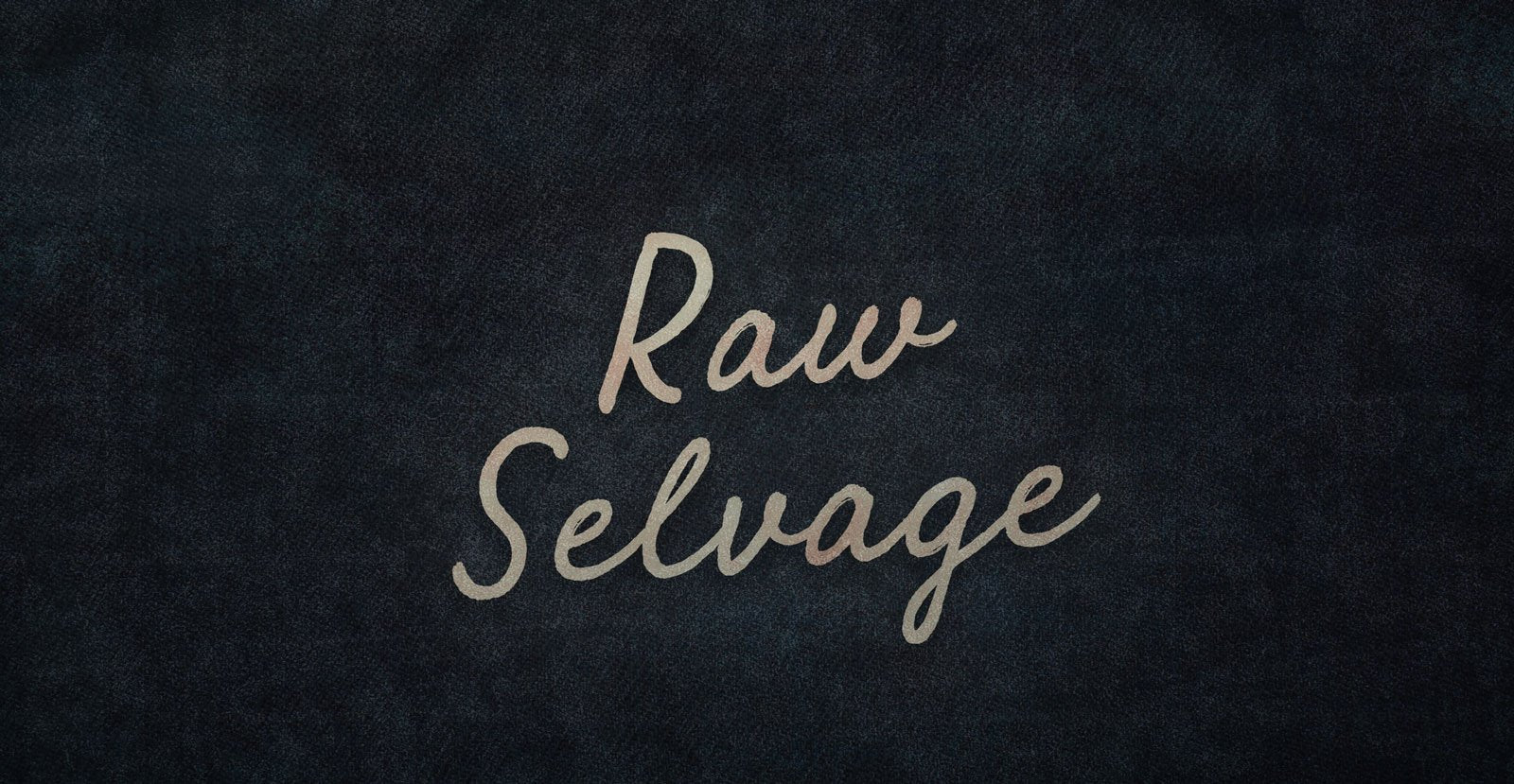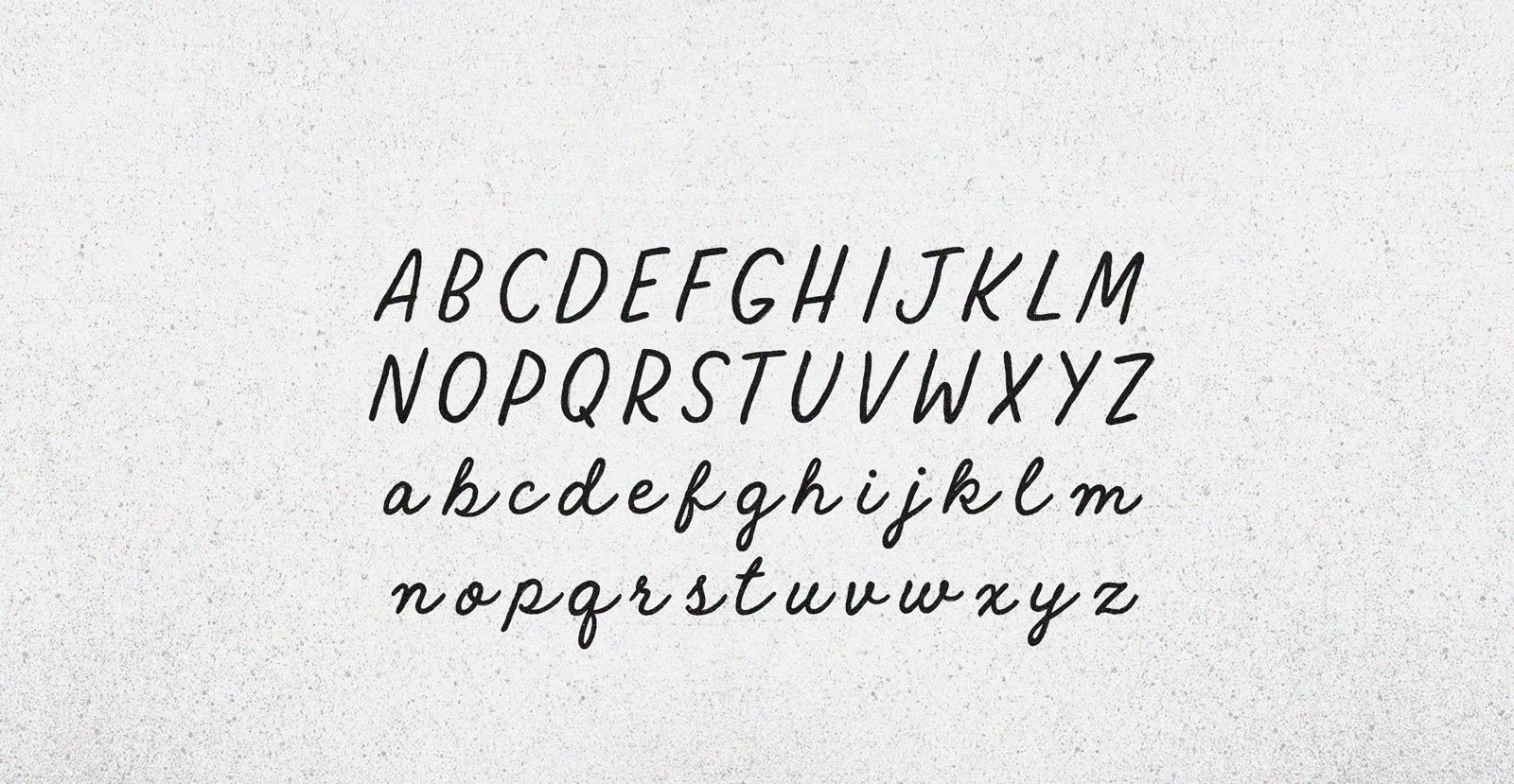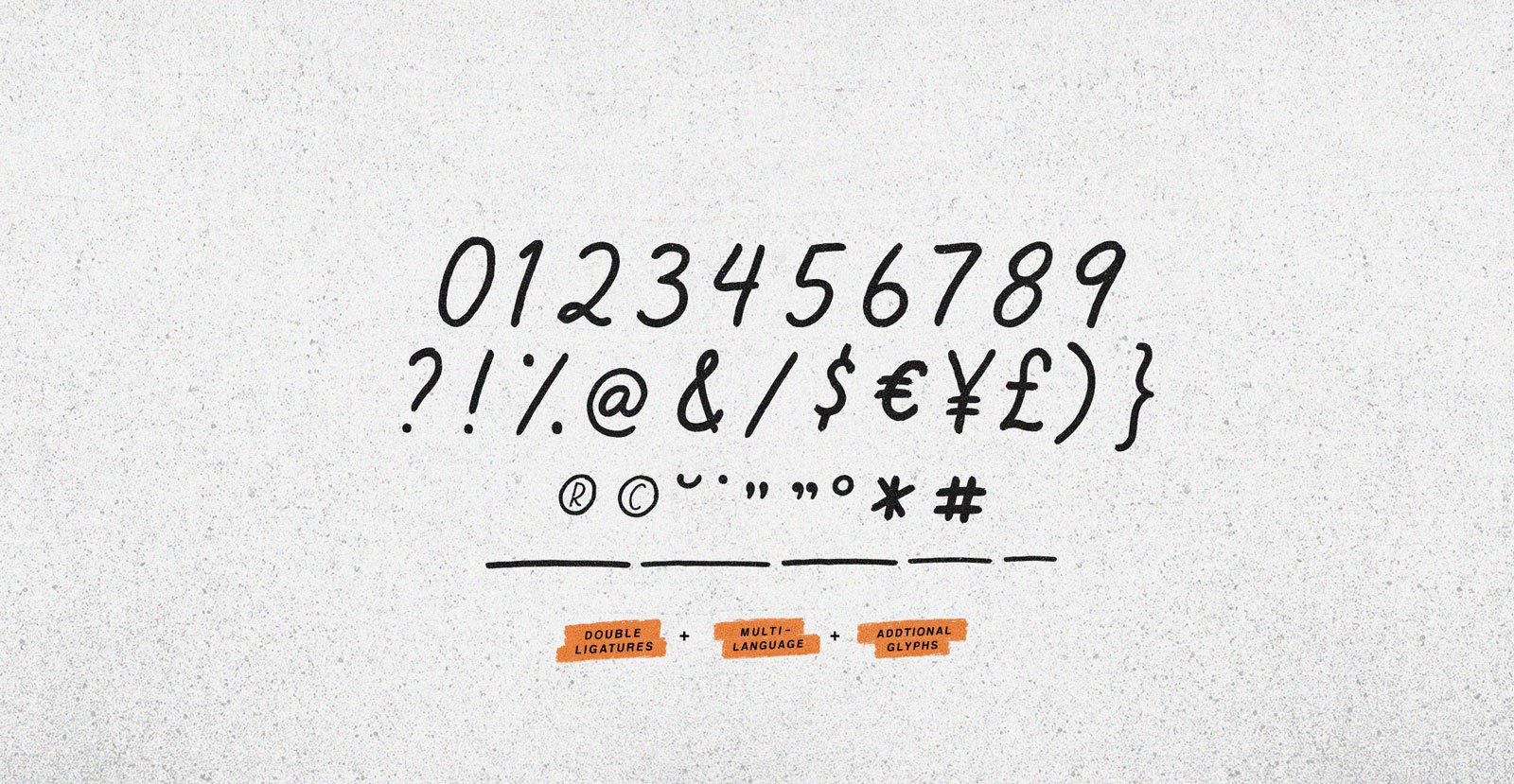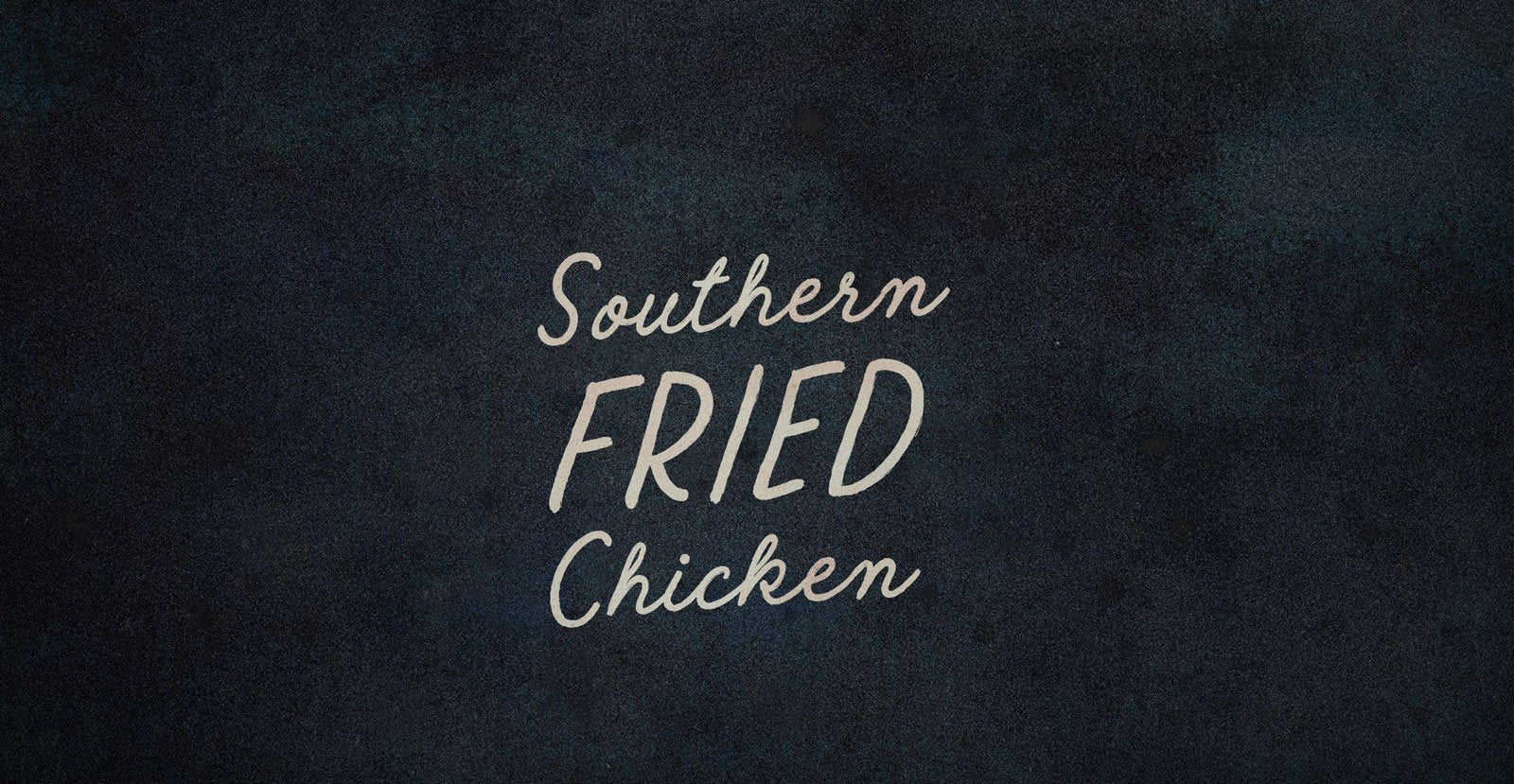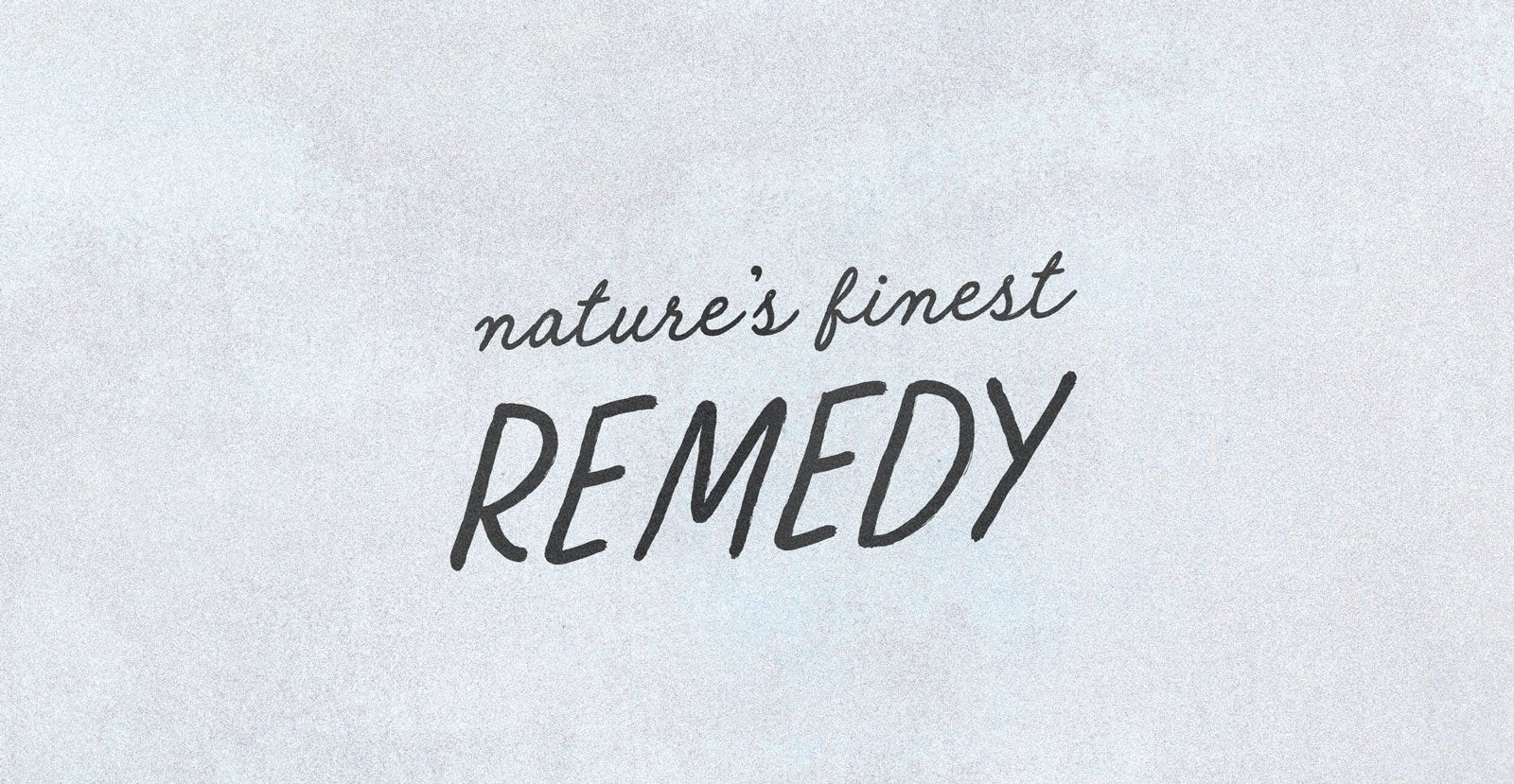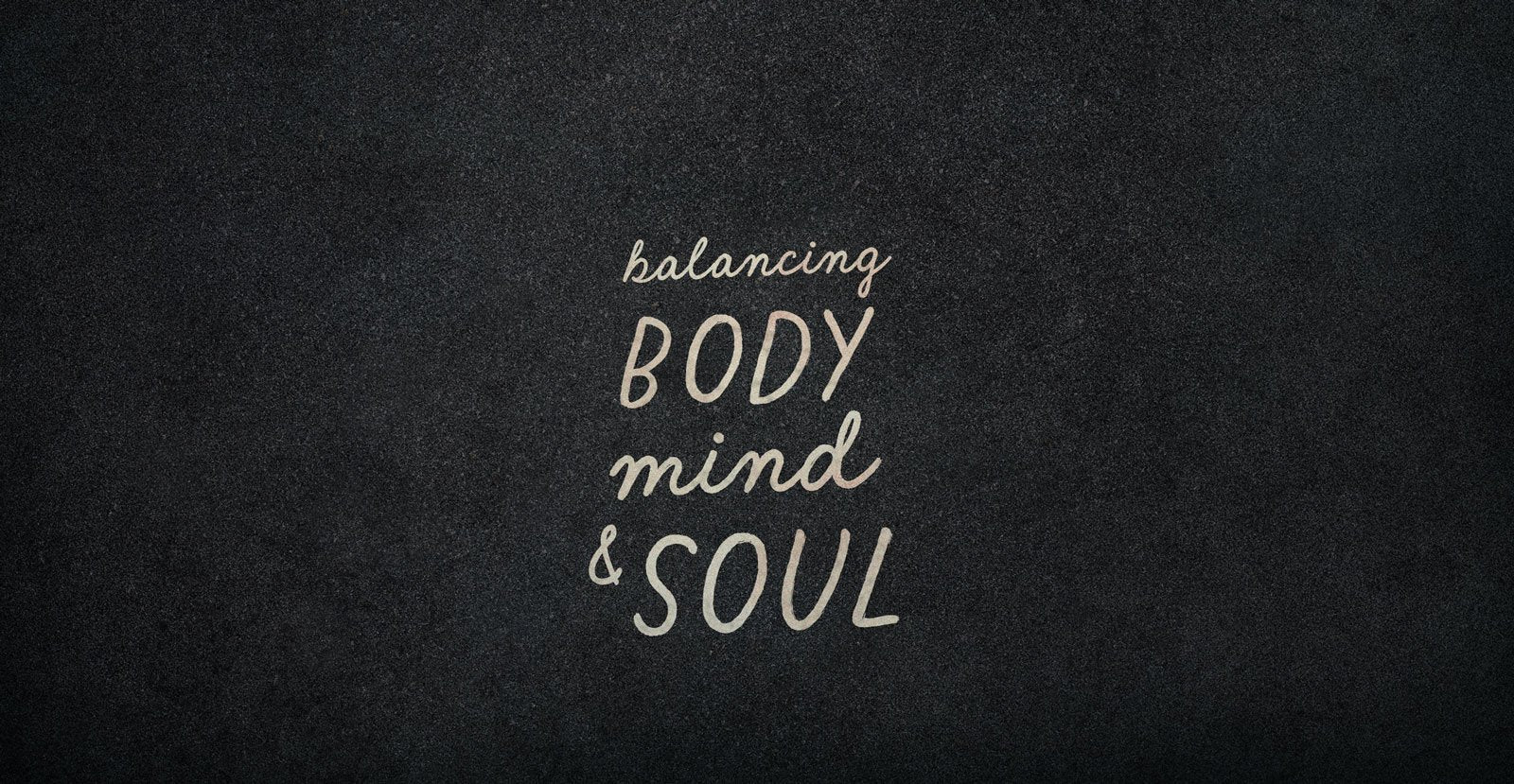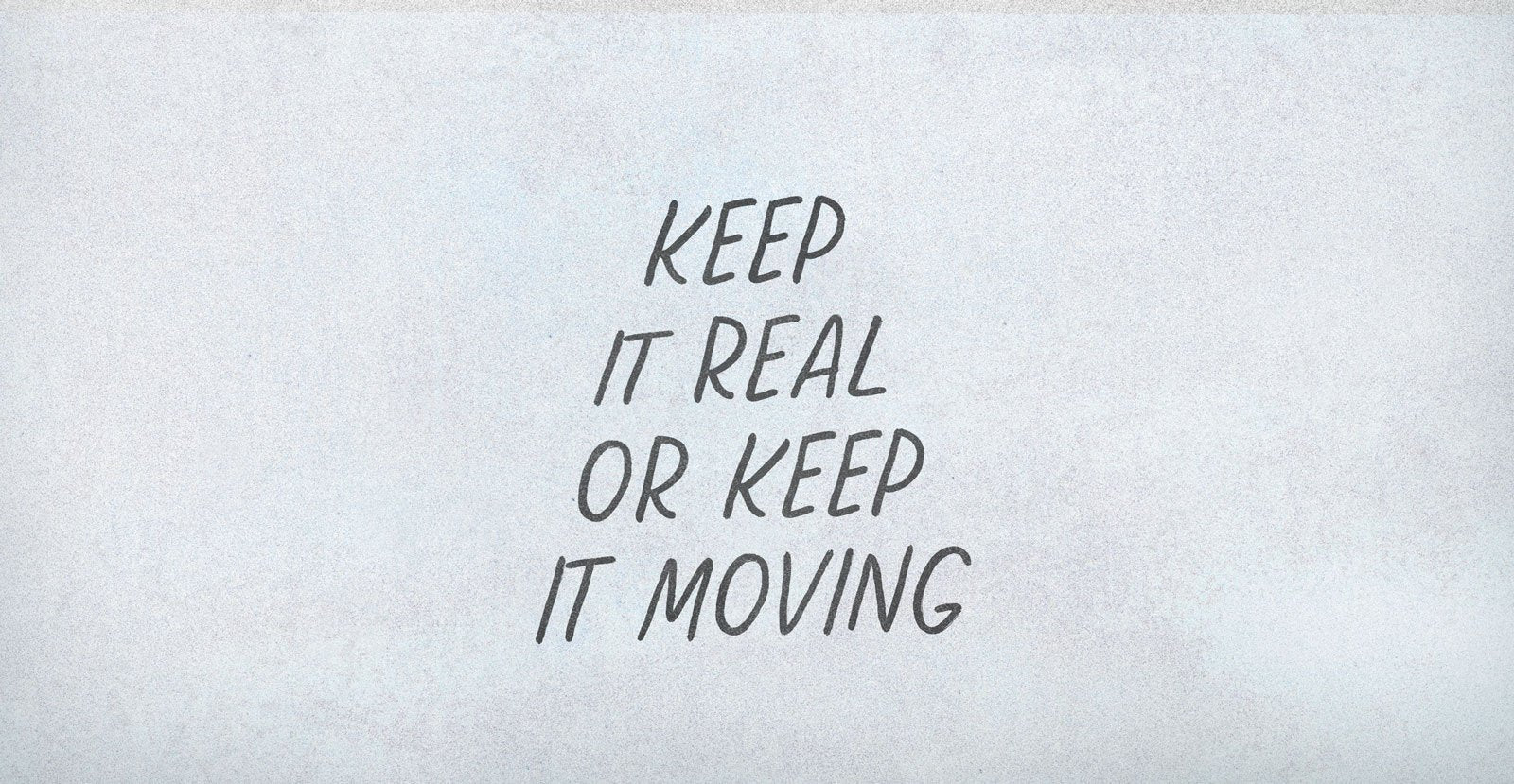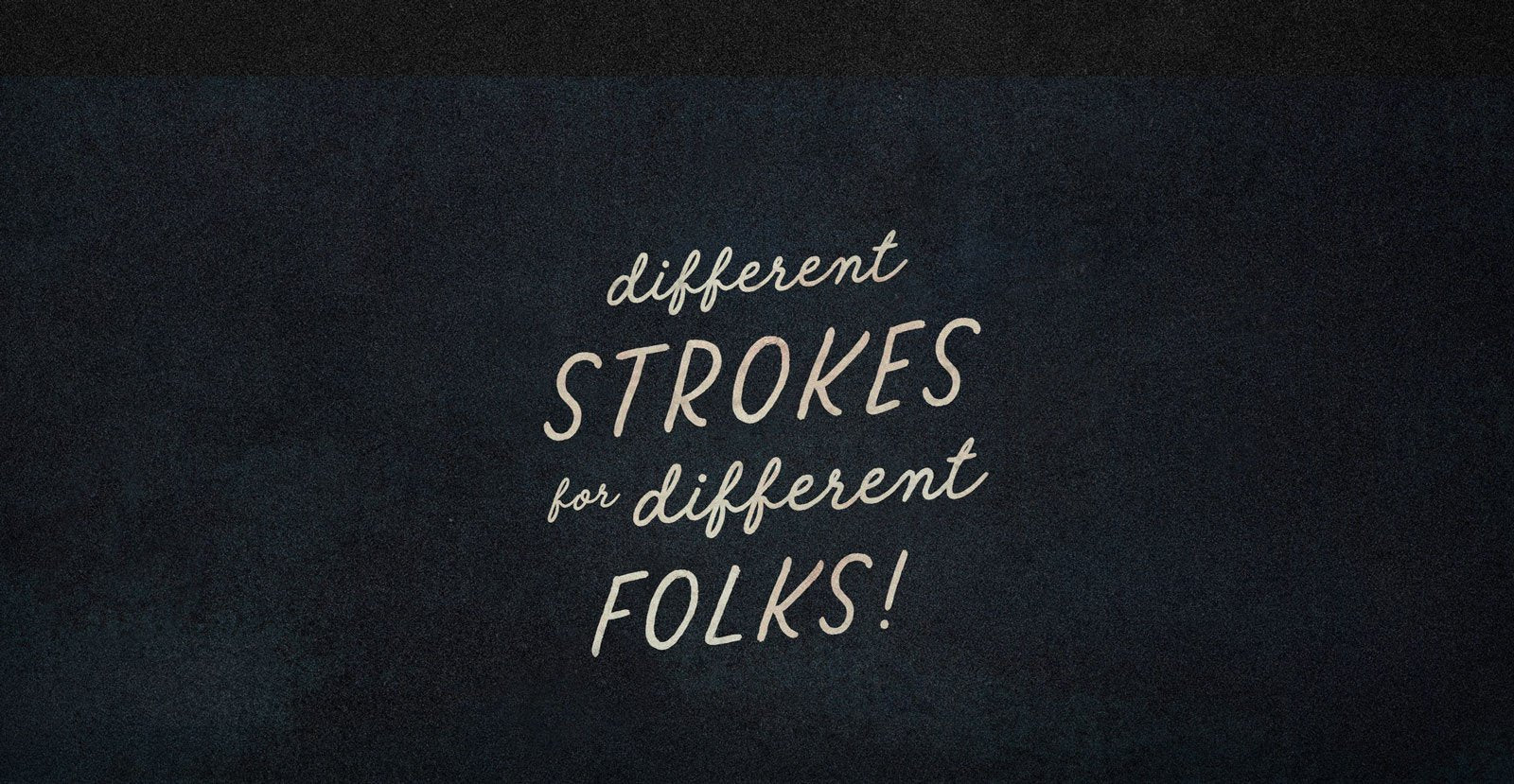
Raw Selvage
Warp and weft, indigo and white. Stiff trousers of Raw Selvage clad legs of raw sinew, raw bone, or even cooked round. Not for nothing, the hard edge self-supports: A structural arch made textile, made pants to stand to wear.